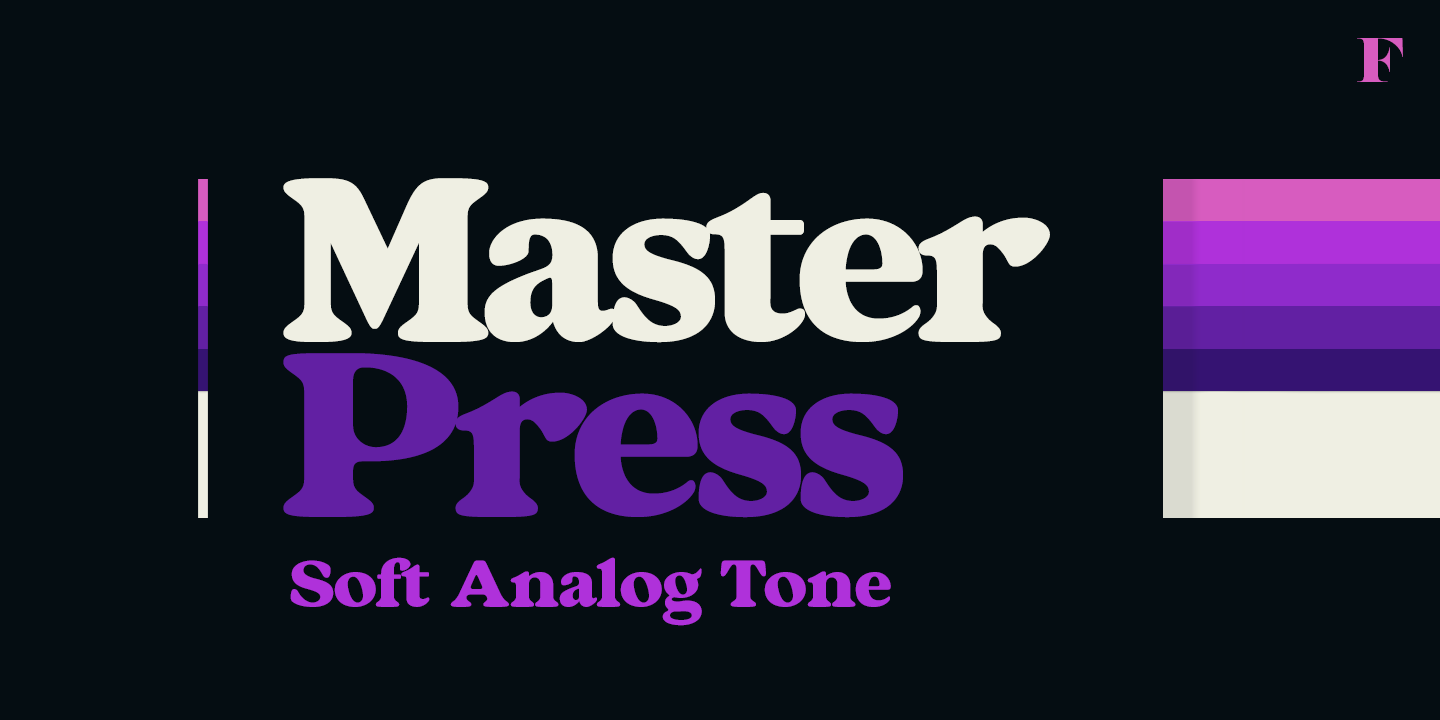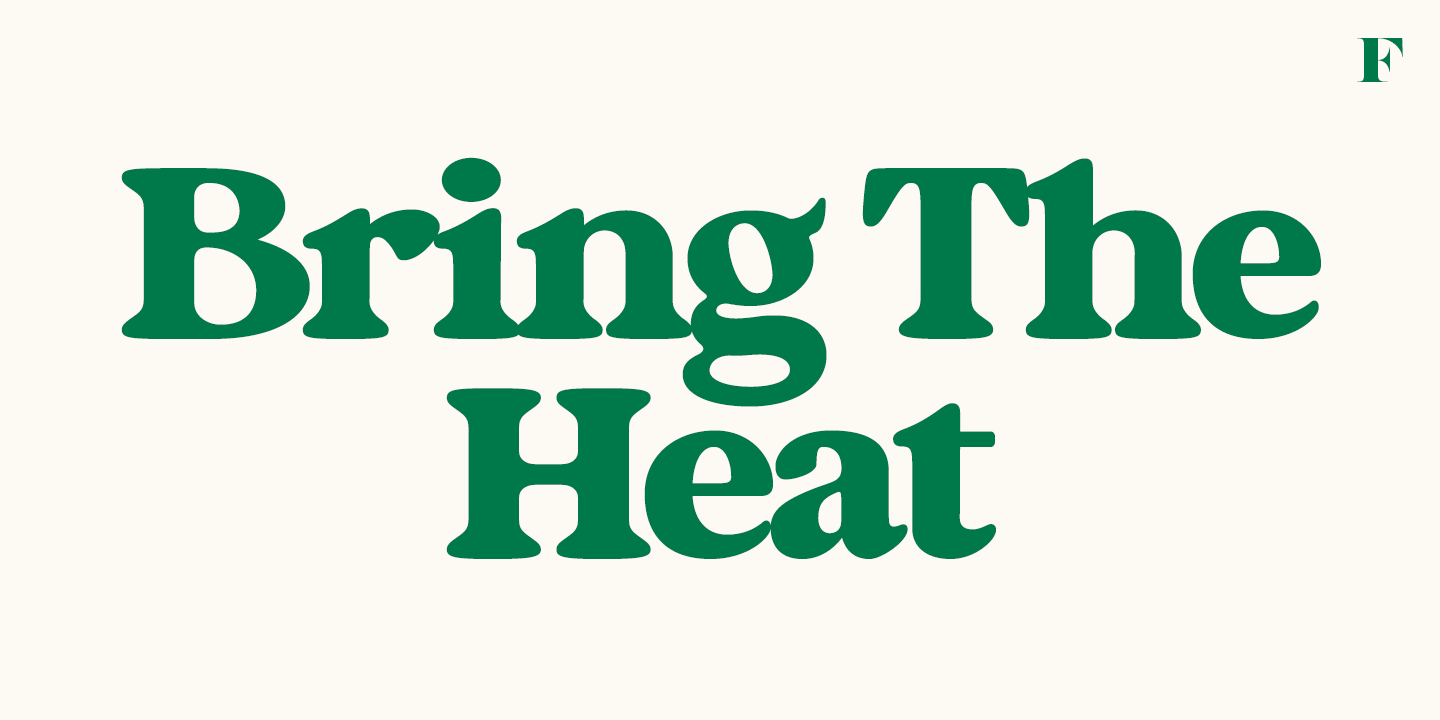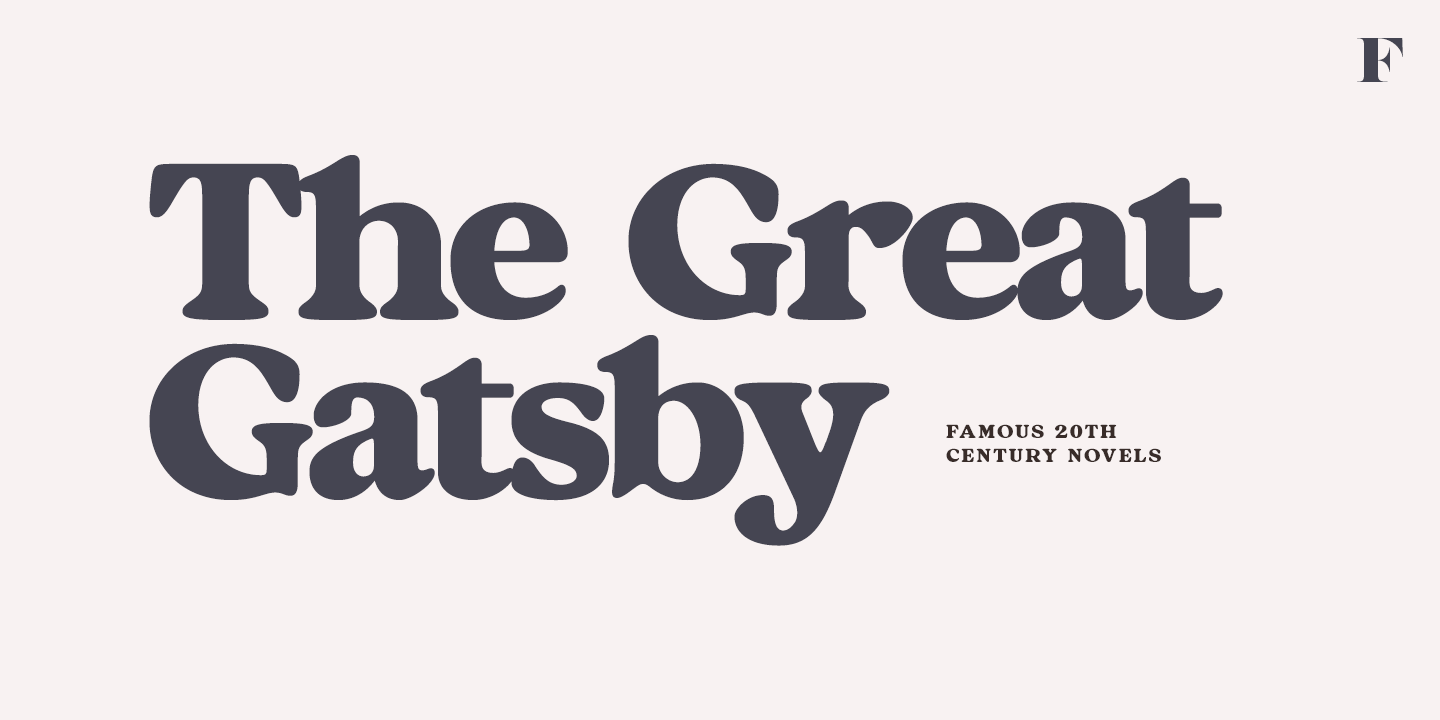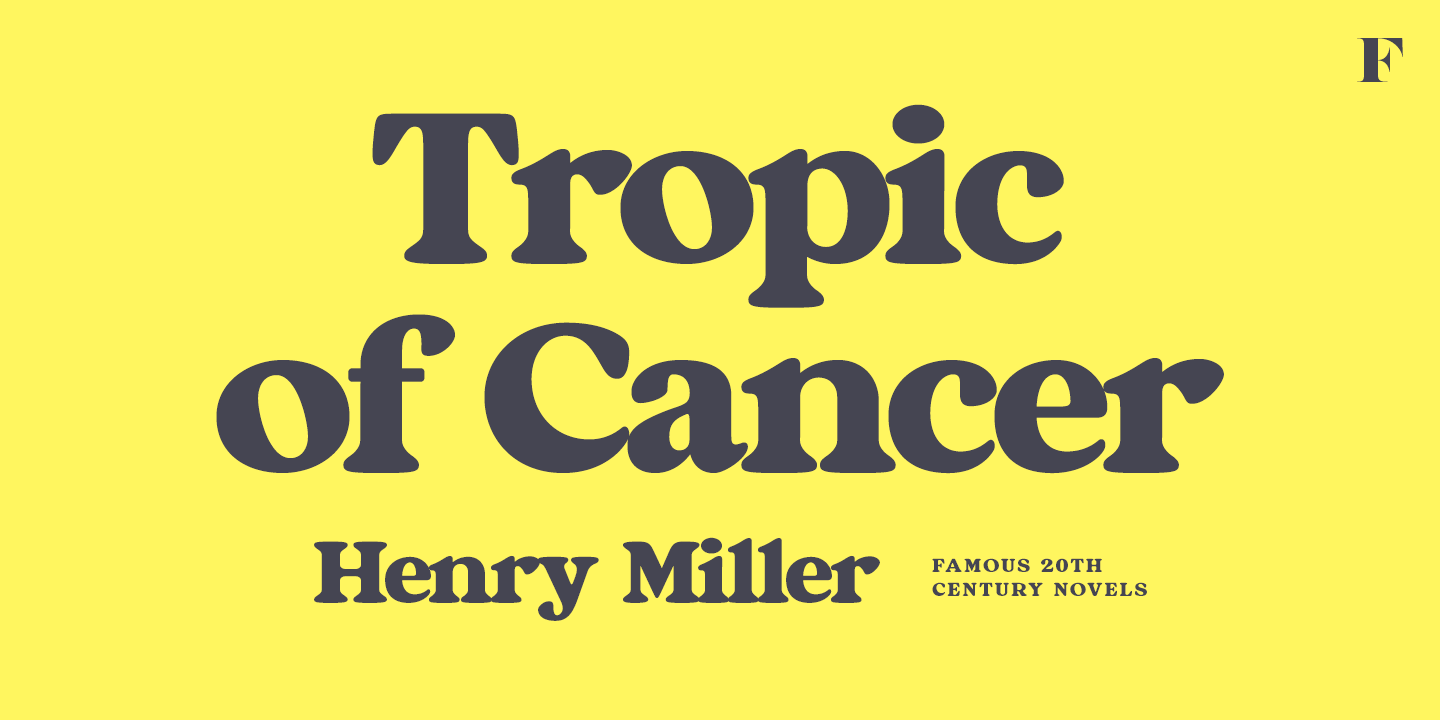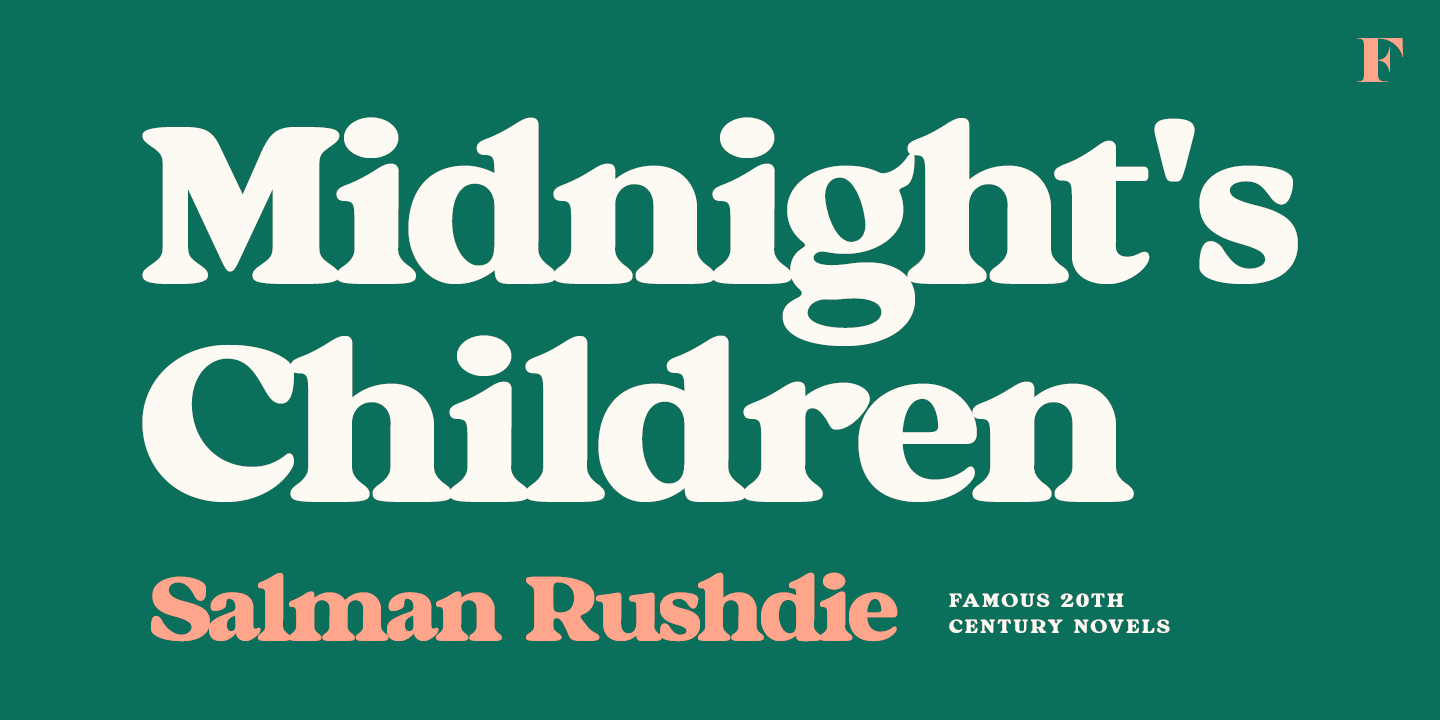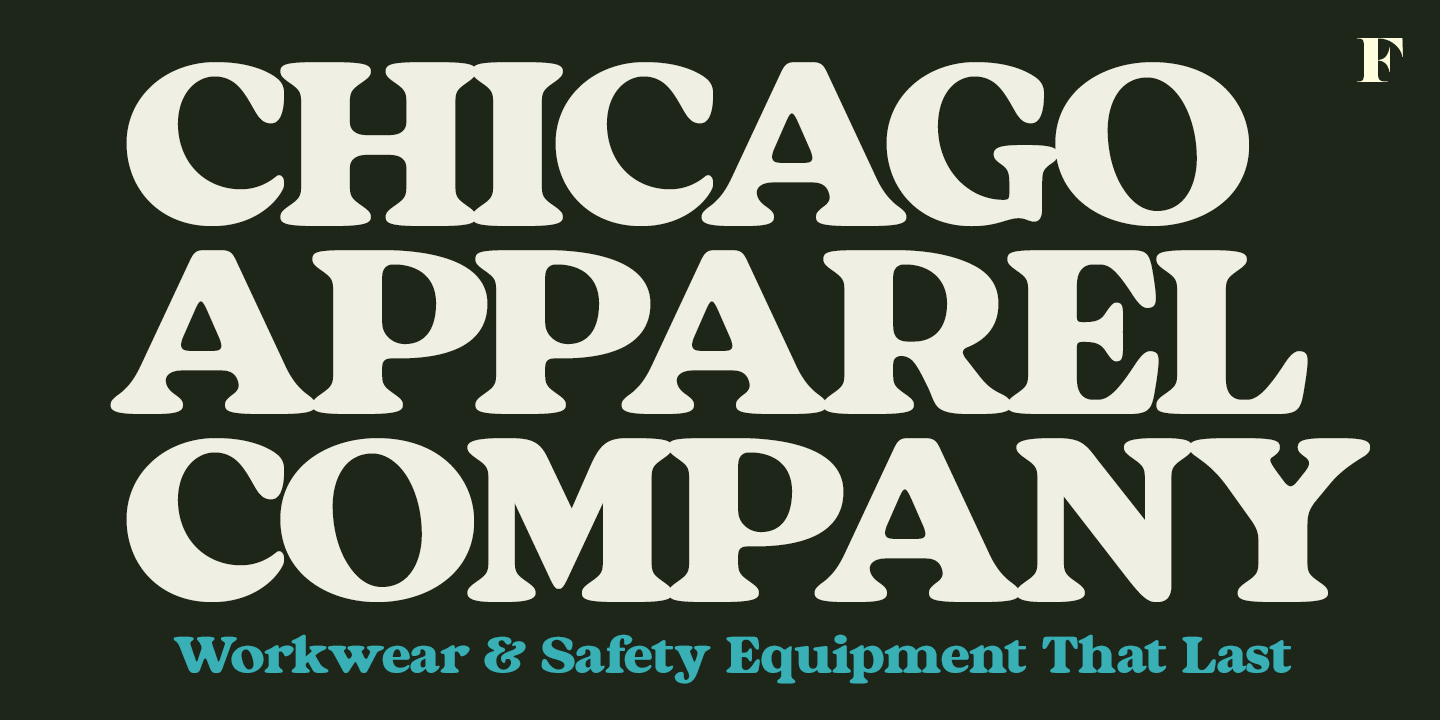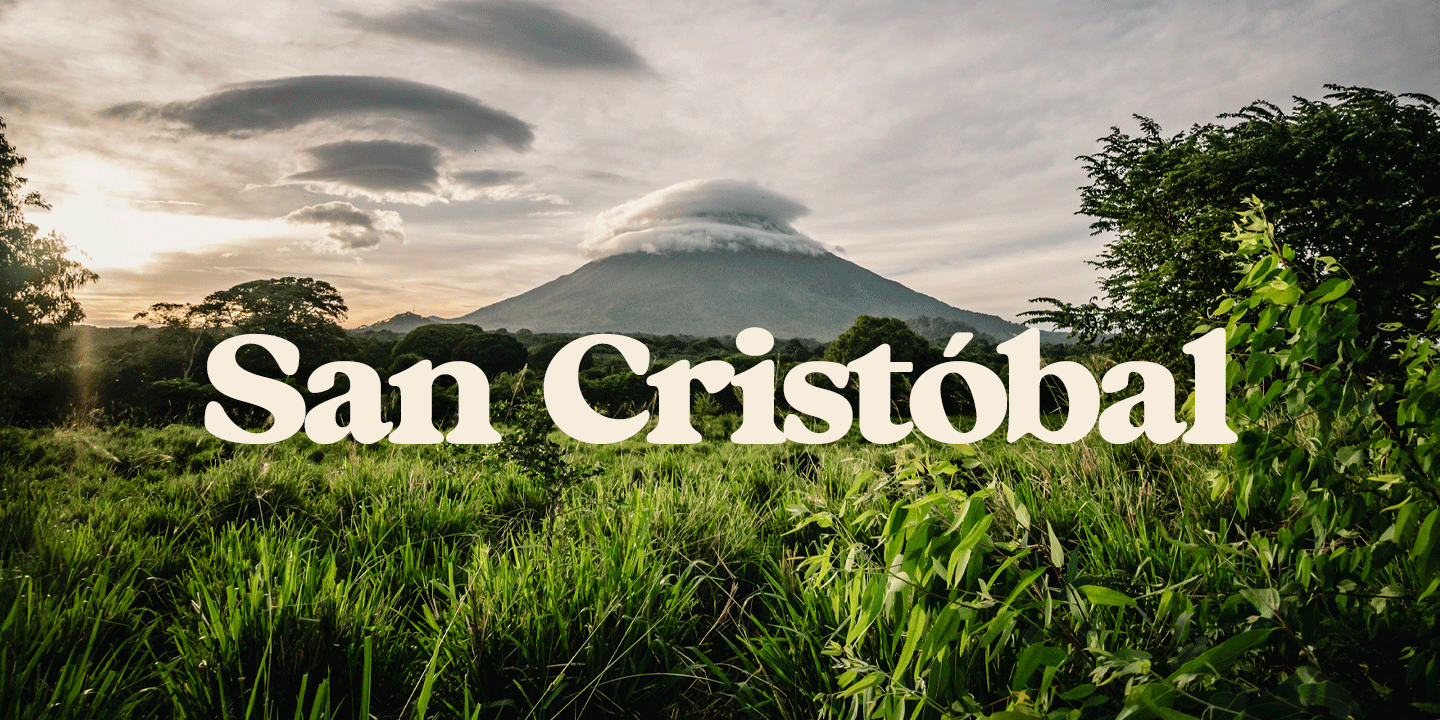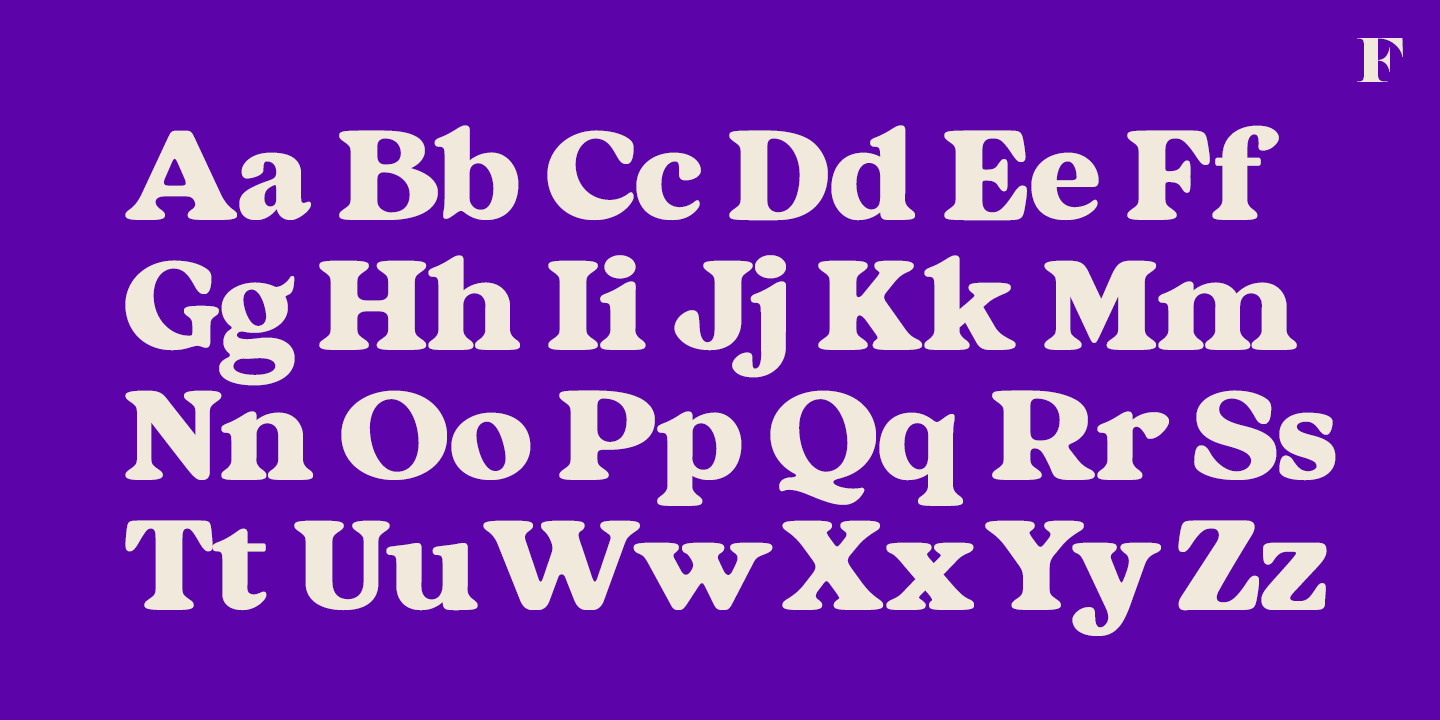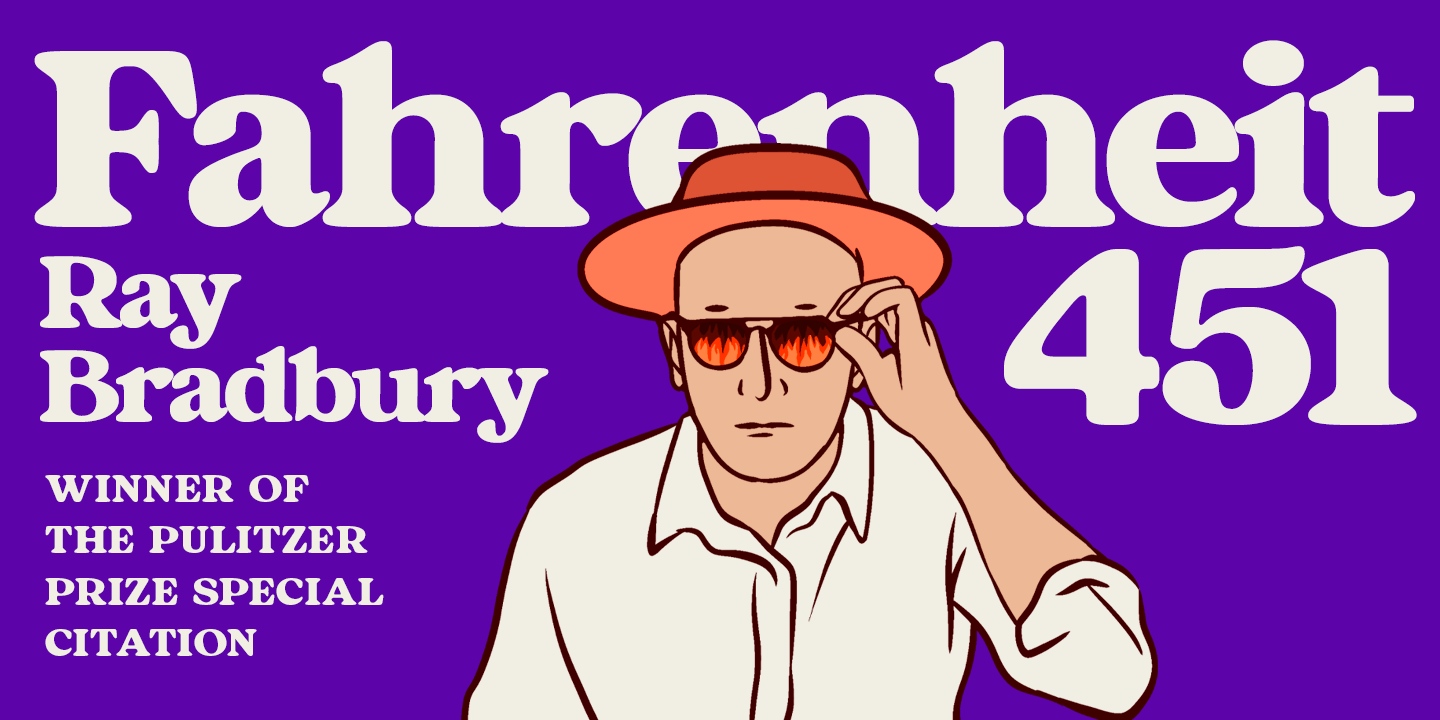
Master Press
A stalwart vintage serif, Master Press displays rounded features and a resolute character in its design. Ideal for book covers, posters, labels, and any application requiring a sense of sturdiness and safety, Master Press delivers precisely that.
Master Press boasts a generous x-height and slightly exaggerated proportions, situating it in the realm of "intellectual pizza" on the cultural spectrum.
Enhanced with 46 Swash, Stylistic, and Titling Alternates, Master Press offers a versatile typographic toolkit.